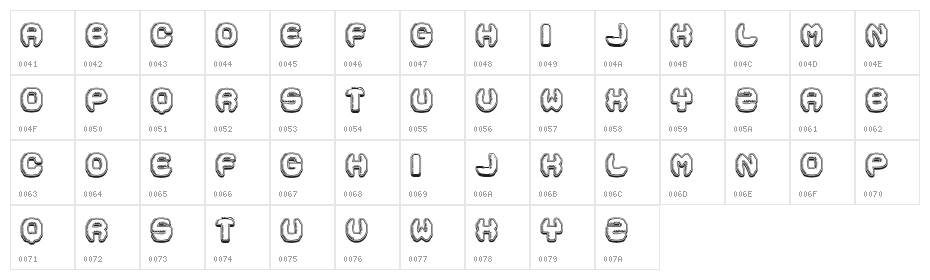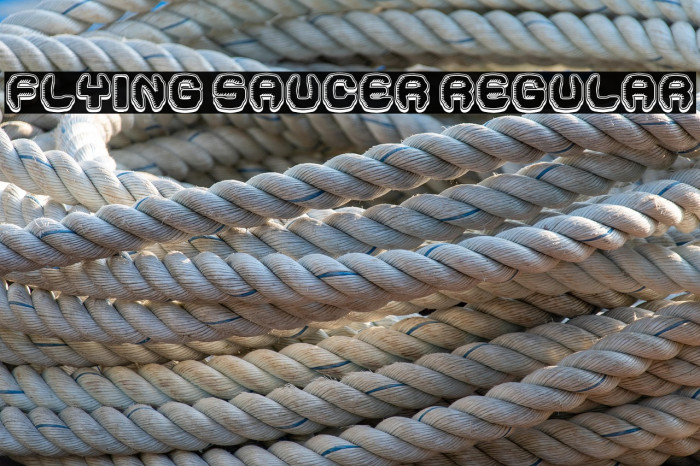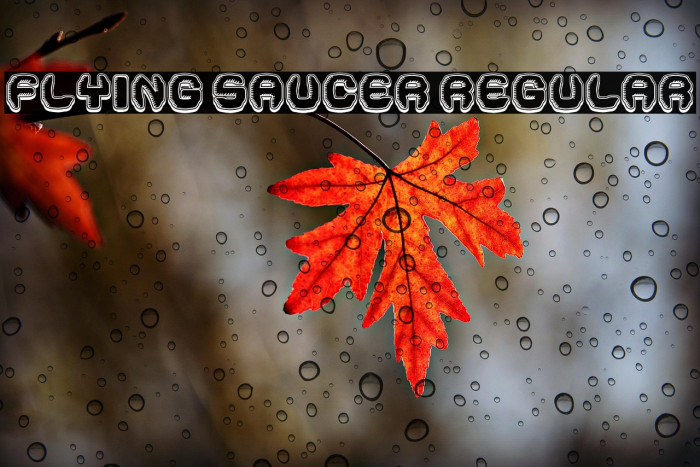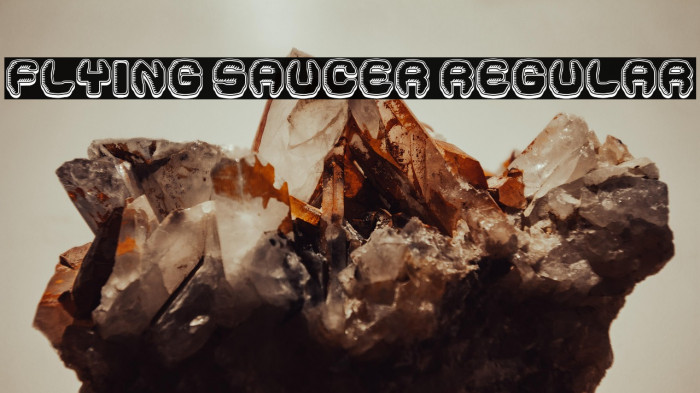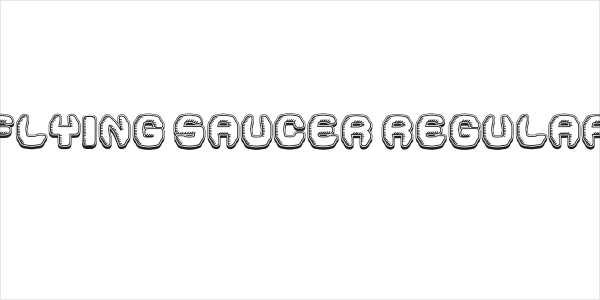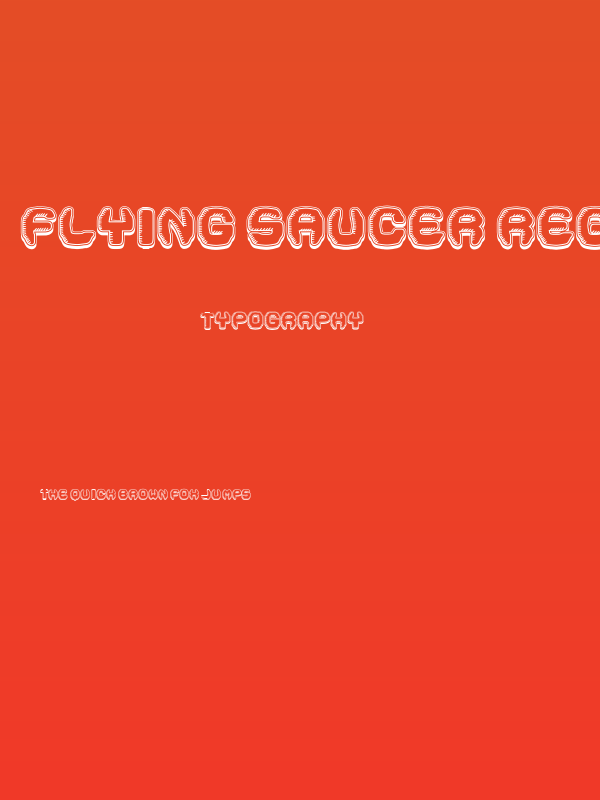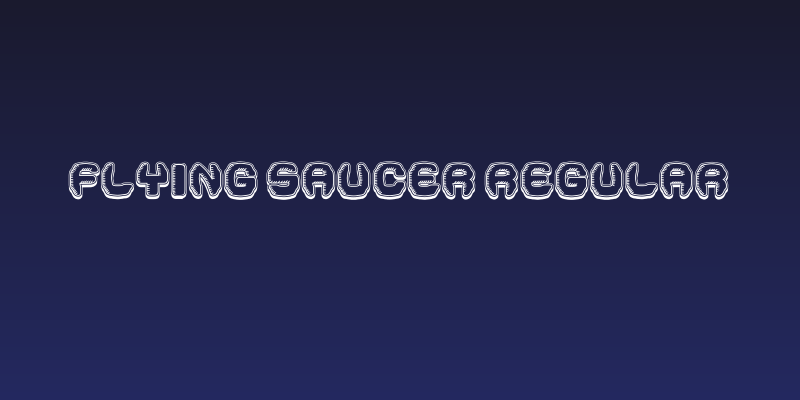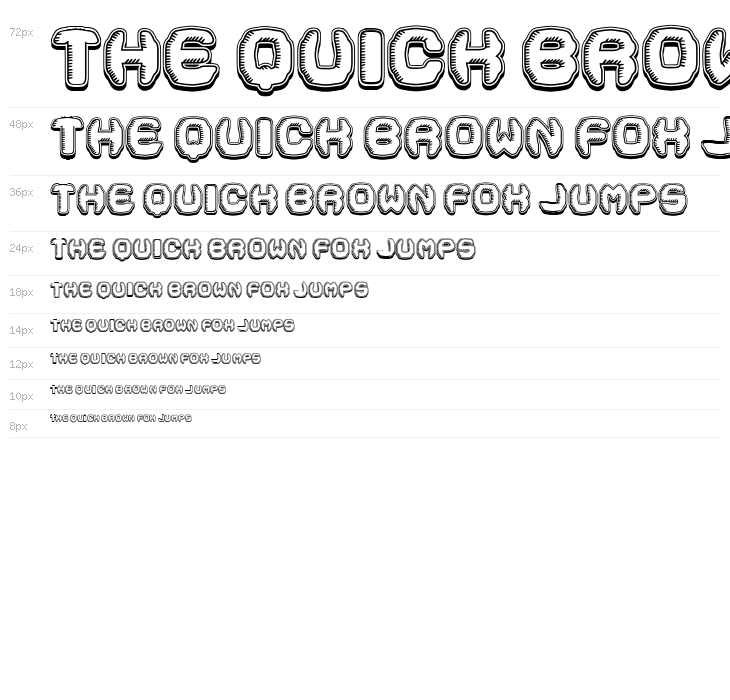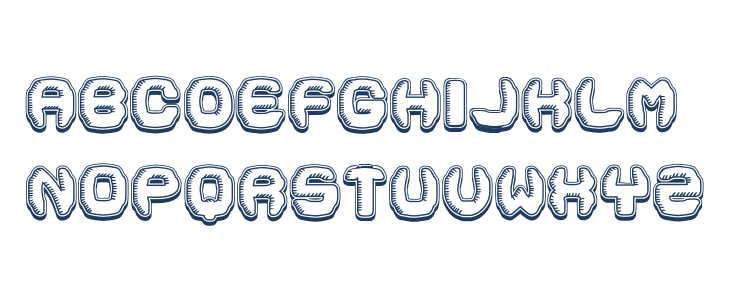
Flying Saucer Regular Font
Flying Saucer Regular Description
This font features a playful and bold design with a three-dimensional effect. Each character is outlined with a thick border, giving it a bubble-like appearance. The inner detailing includes horizontal lines that add texture and depth, enhancing the 3D illusion. The style is reminiscent of retro or comic book aesthetics, making it stand out with its unique and eye-catching look. The characters are uniformly wide, contributing to a balanced and consistent appearance across the typeface. This font is ideal for projects that require a fun and engaging visual impact.
| Overall Style | Retro, Comic |
| Proposed Projects | Ideal for comic books, children's books, posters, and playful branding. |